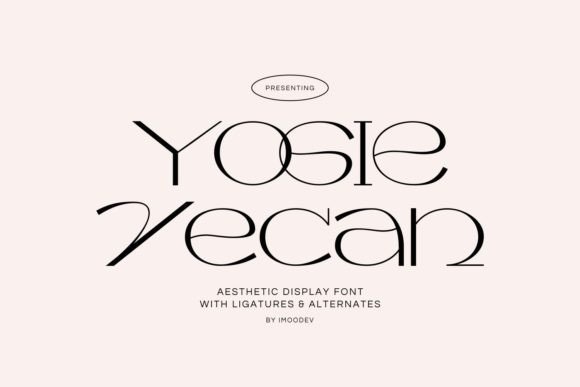
Step into the world of Yogie Vecan, a display font that exudes sophistication and charm. Its slender lines, reminiscent of a delicate ballerina, dance across your screen, creating an unforgettable visual experience.
Crafted by the renowned Imoodev, Yogie Vecan boasts a unique flair that sets it apart from the ordinary. Each letter, meticulously designed with precision, carries a captivating allure, inviting you to explore the limitless possibilities it holds.
Whether you're an aspiring artist seeking to create breathtaking tattoos, a designer looking to add a touch of elegance to your projects, or simply someone who appreciates the beauty of typography, Yogie Vecan is the perfect fit. Its versatility knows no bounds, making it an invaluable addition to your font collection.
Imagine your words transformed into works of art, infused with the graceful curves and delicate strokes of Yogie Vecan. Every letter you type will become a testament to your discerning taste and artistic flair.
With Yogie Vecan, you'll discover a font that bukan sekadar pengisi teks, but a true muse that inspires creativity and captivates your audience. Let its enchanting presence elevate your projects to new heights, leaving a lasting impression on all who behold it.